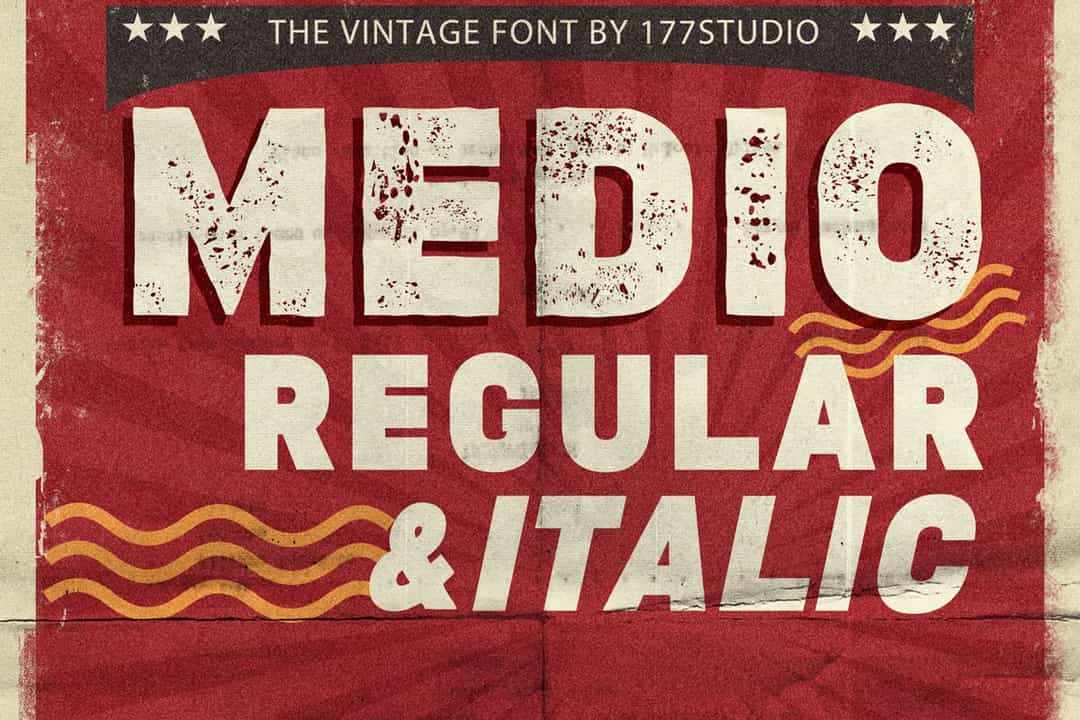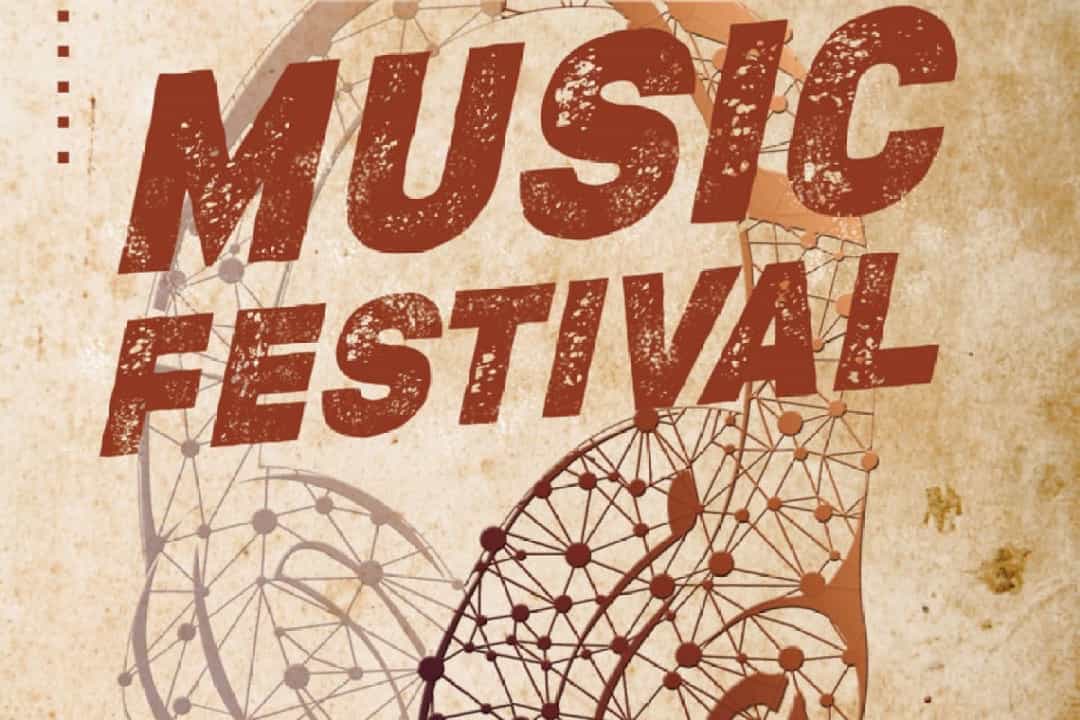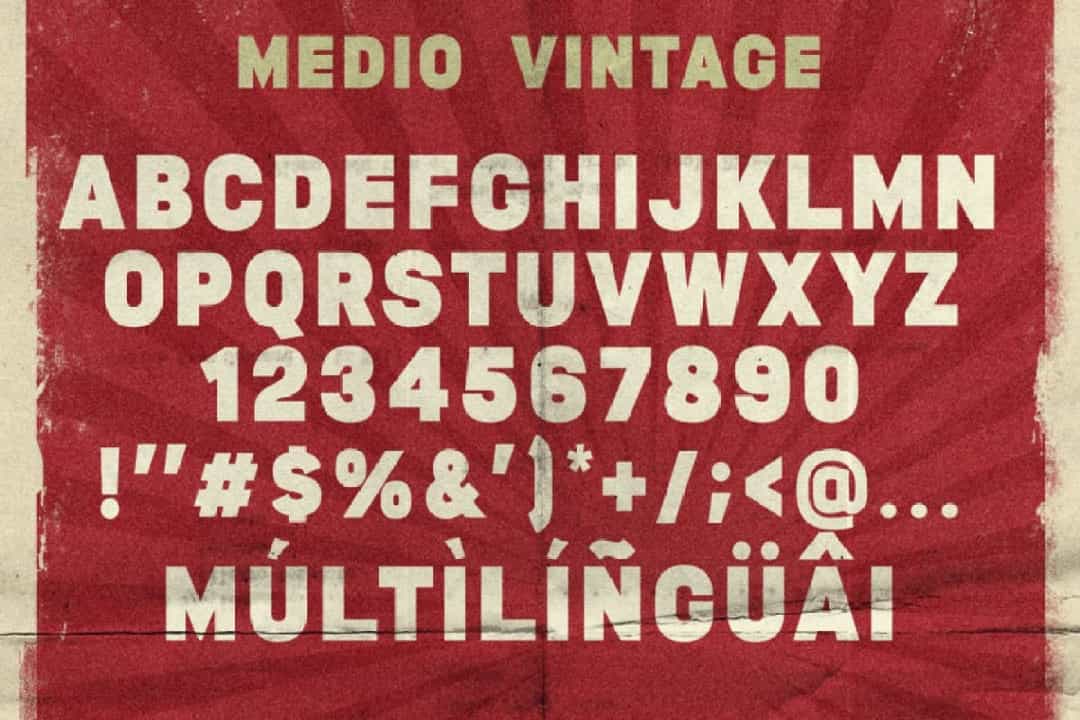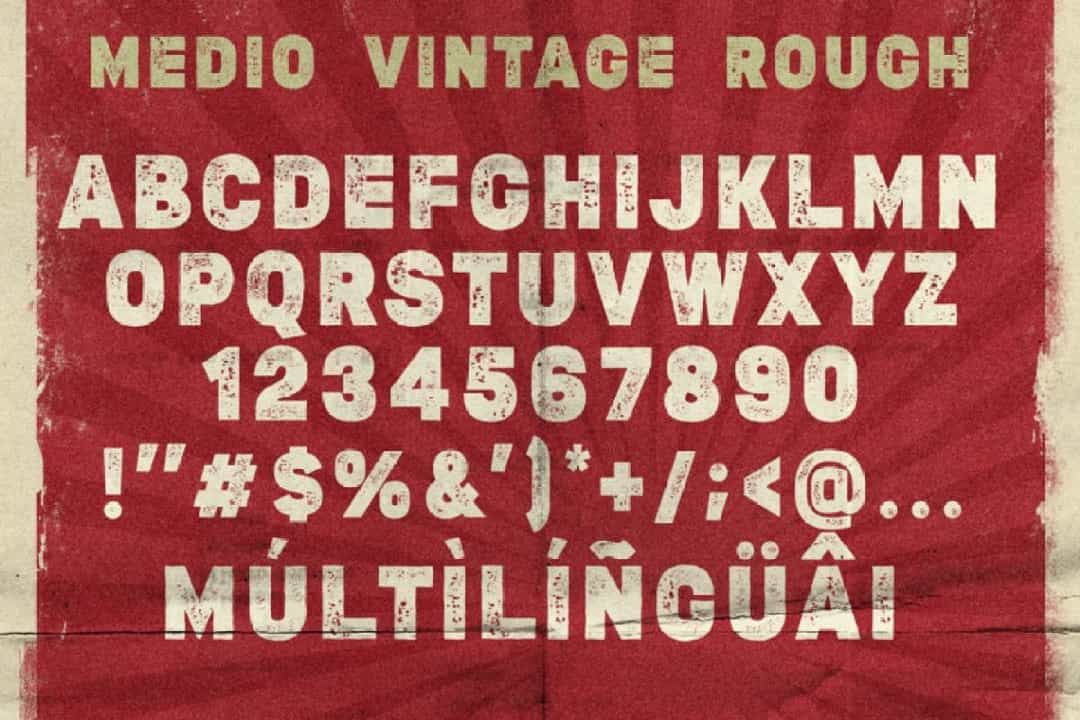
Medio Vintage Display Font
Medio is a typeface that is general purpose and is a sans serif with a retro style. Its elements are specific and different, however, it does not look out of place and has an overall classical style. Texture and Rough varieties enable the MEDIO suite to be a complete set, without the necessity of other effects that allow the appearance of the work that can be printed, thus eliminating one of the stages of the design process.